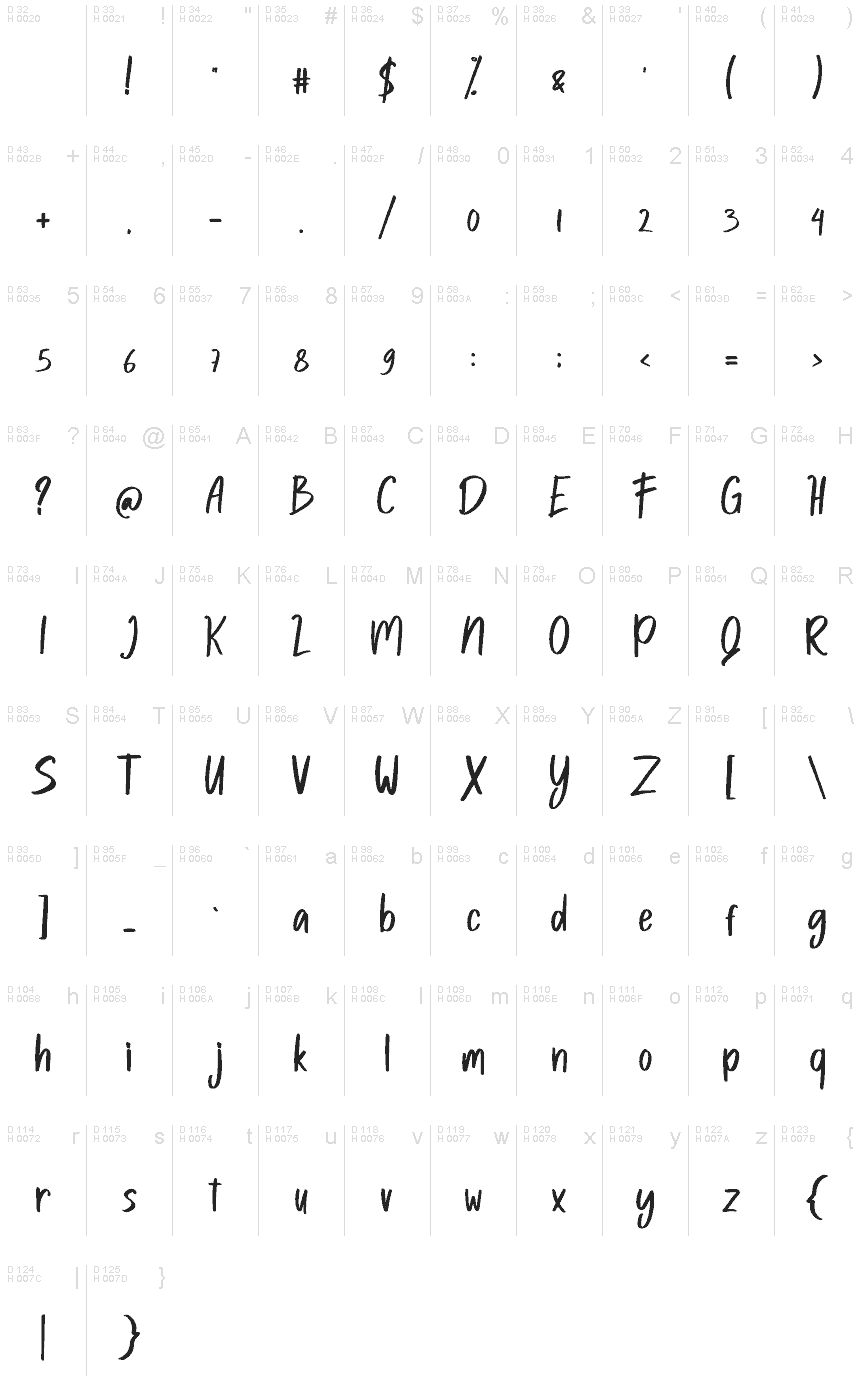
Qalesya
Qalesya is a new handwritten font designed and shared by Skiiller Studio. It’s available in condensed width and comes with a variety of characters. The letters have smooth and round edges, making this font appropriate for all types of art projects and design layouts.
Qalesya condensed handwritten font can be used for branding projects, product packaging design, greeting cards, invitation cards, blog posts, poster design, posters and banners, magazine and newspaper articles. It can also be used for logos design, labels, badges, and a huge range of others.